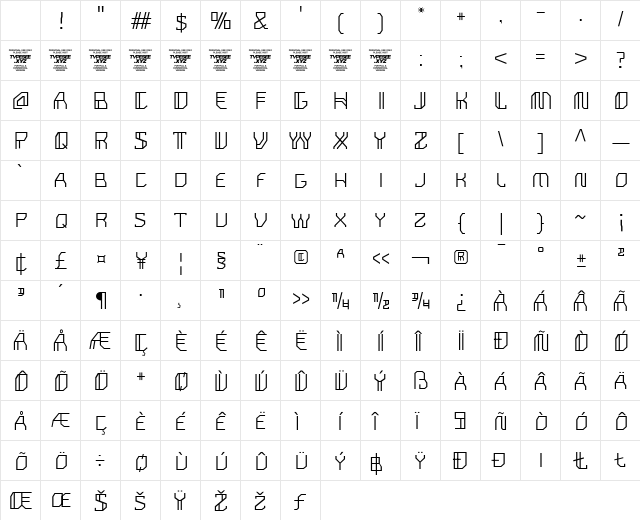
Complete Nebula Chronos Light Regular glyph index. Displaying only characters natively supported by Nebula Chronos Light Regular font.
Nebula Chronos Light is a composed and adaptable typeface that performs quietly and consistently across a wide range of design contexts. Its slender proportions lend an understated elegance to any composition.